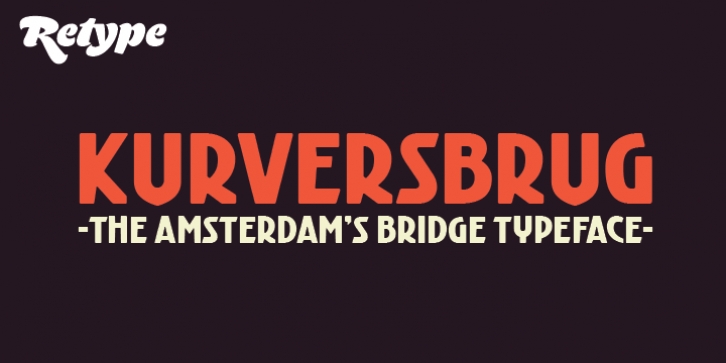
Kurversbrug is a revival of the famous letters appearing on Amsterdam’s bridges. The letters were probably designed by Anton Kurvers (b. Den Haag, 23 July 1889; d. Amsterdam, 29 January 1940).
Although many corrections were made in order to improve its performance on paper, the original look is still intact. Kurversbrug is a font suitable for posters and idiosyncratic typographic works.